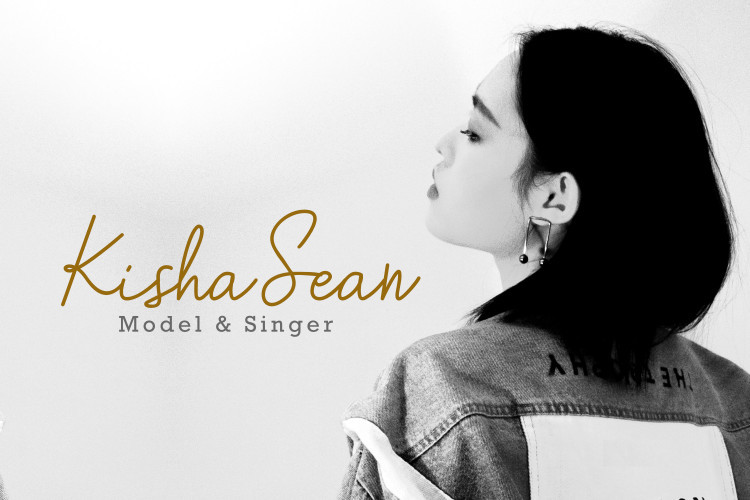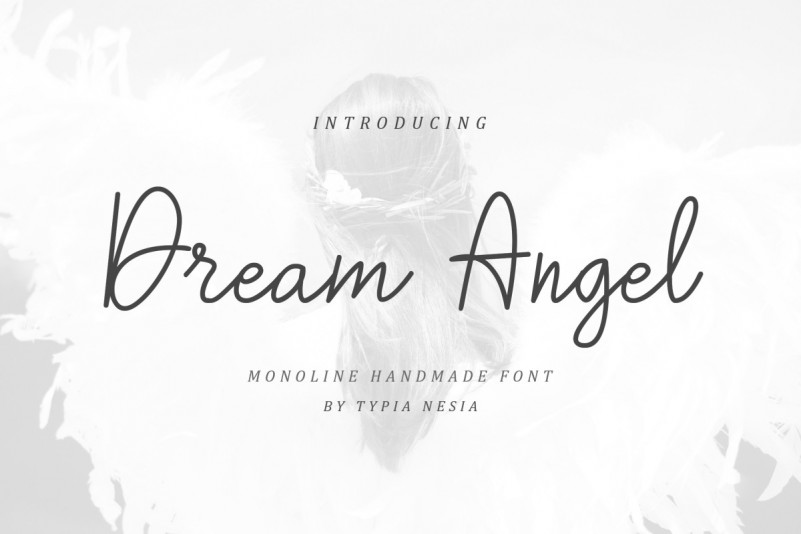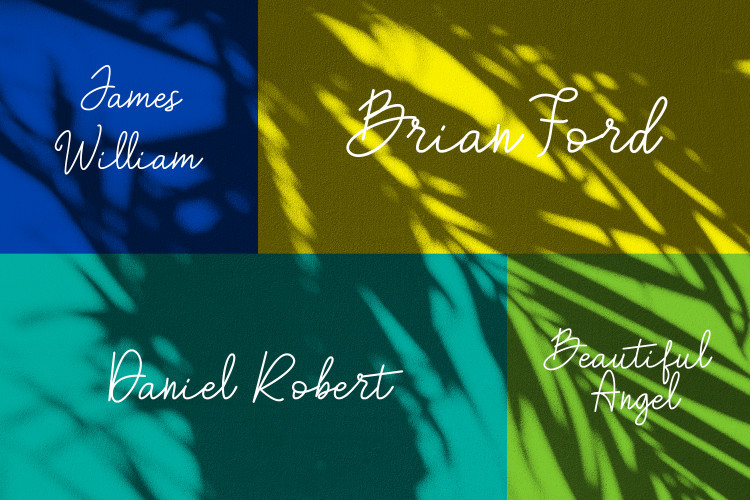
Dream Angle Font
Dream Angle is a romantic handwritten script font. It is suitable for any design needs, modern invitation design, branding, stationery design, blog design, modern advertising design, invitation, Art Quote, Home decor, Book/Cover Title, Invitation, special events, birthday, custom mug, pillow, t-shirts, any brush lettering needs and more.